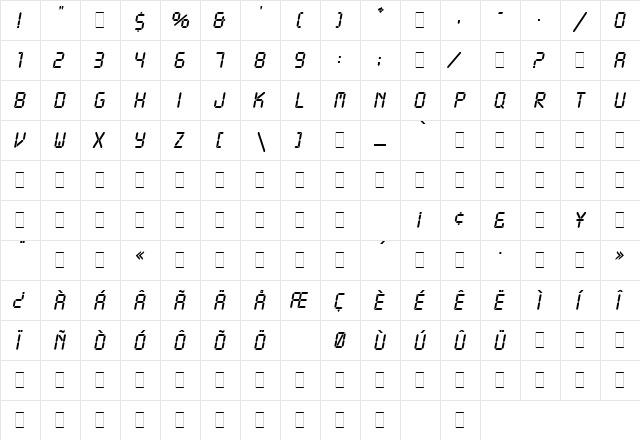
LCD LET Plain
Design Context for LCD LET Typeface
LCD LET is a composed and adaptable typeface that performs quietly and consistently across a wide range of design contexts.